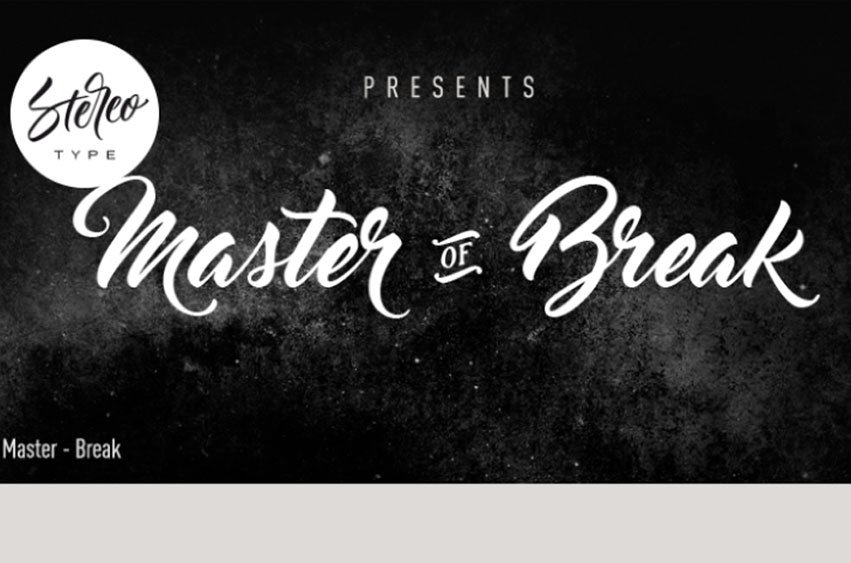
Master of Break Font is an aesthetic new script font they developed for design projects, and distributing it across the market.
How Master of Break can contribute to your designs?